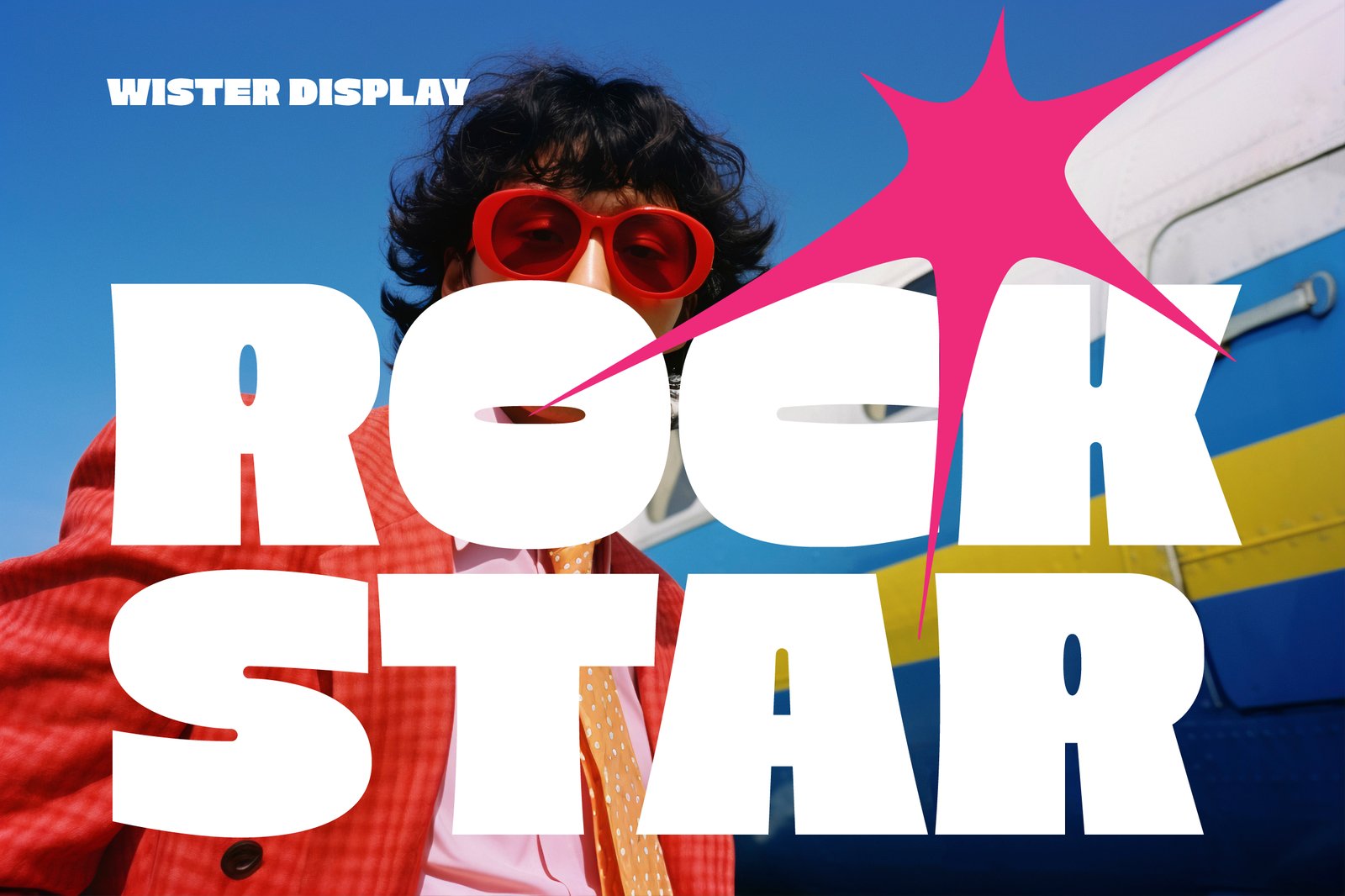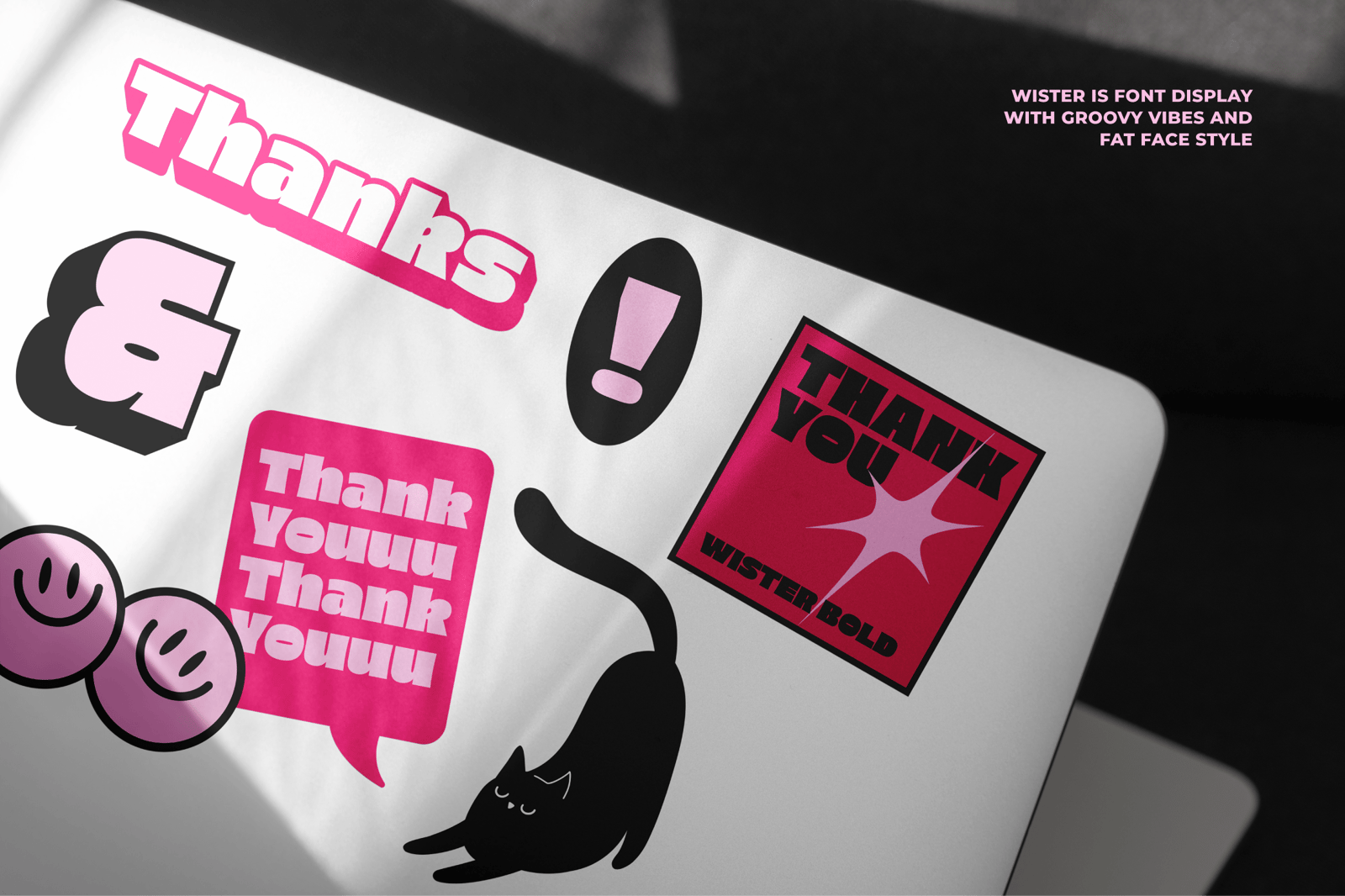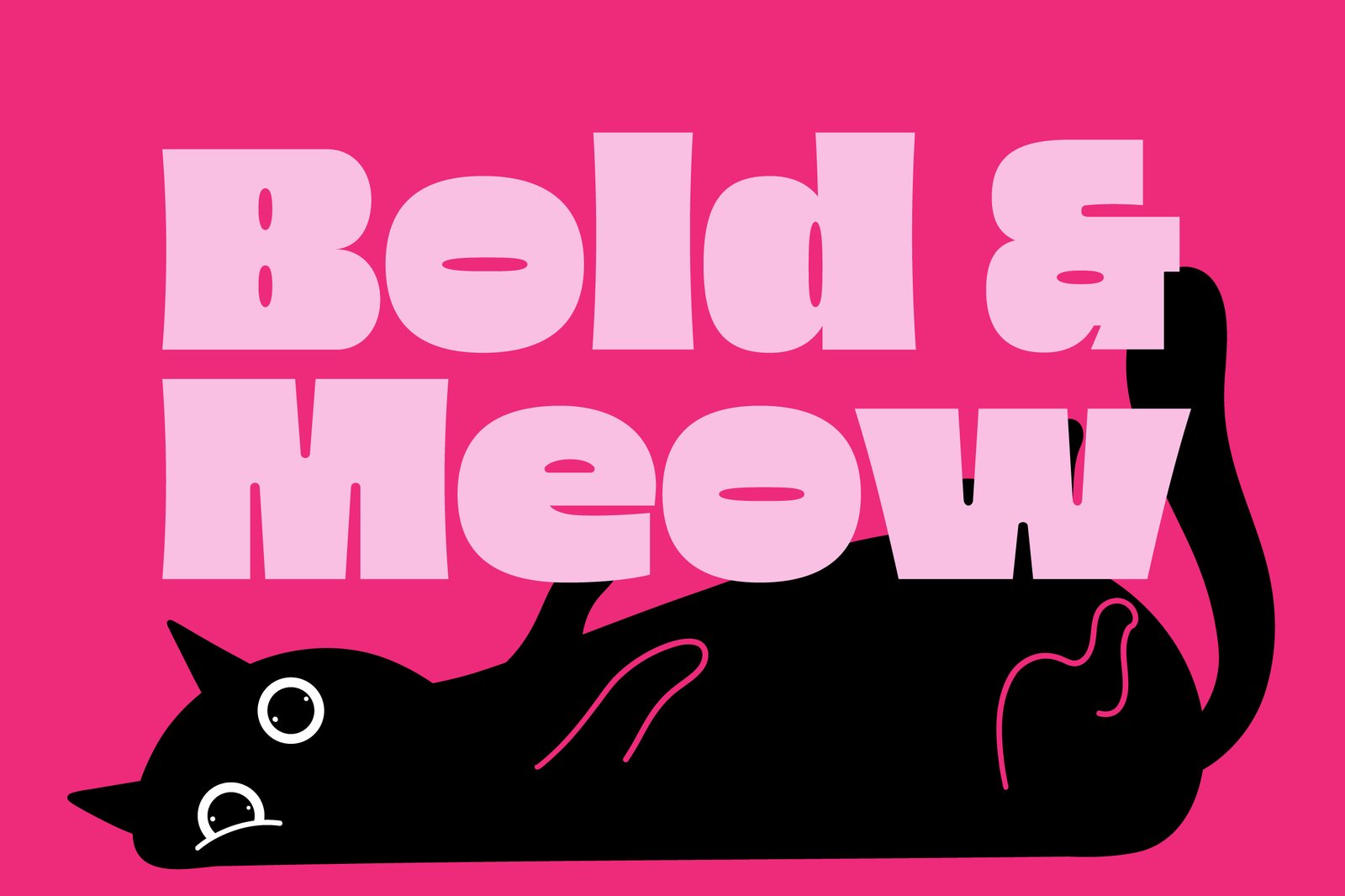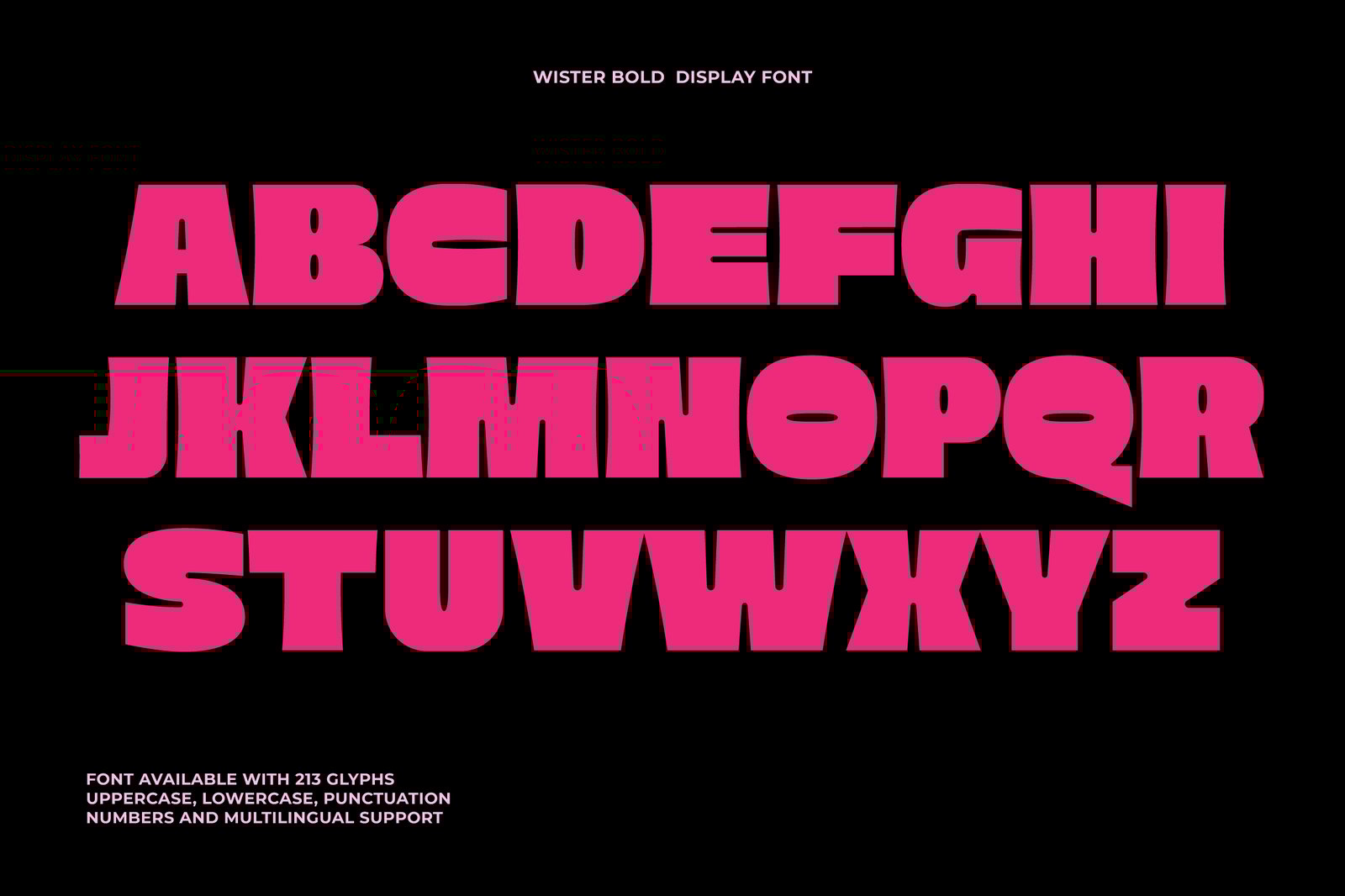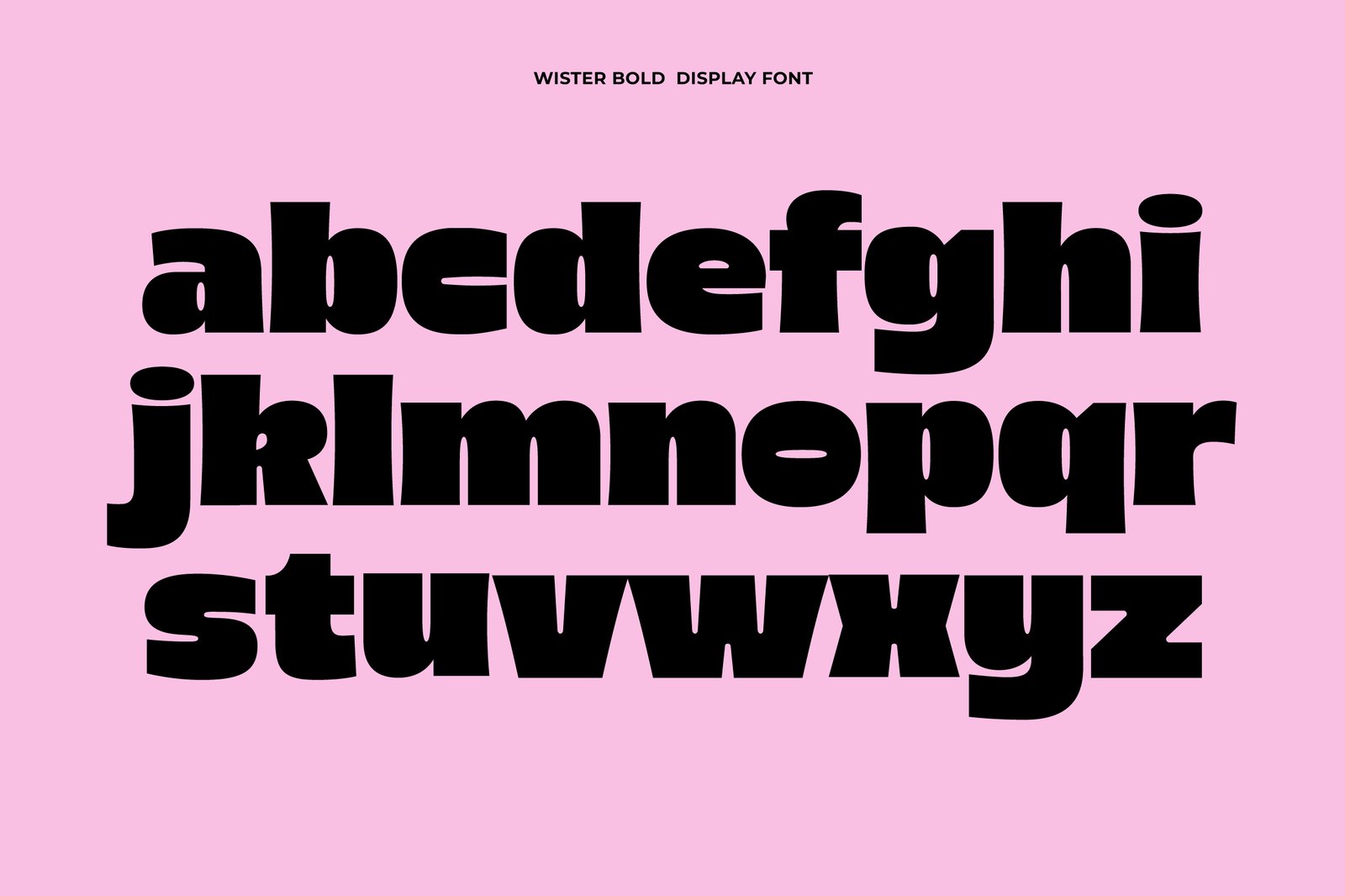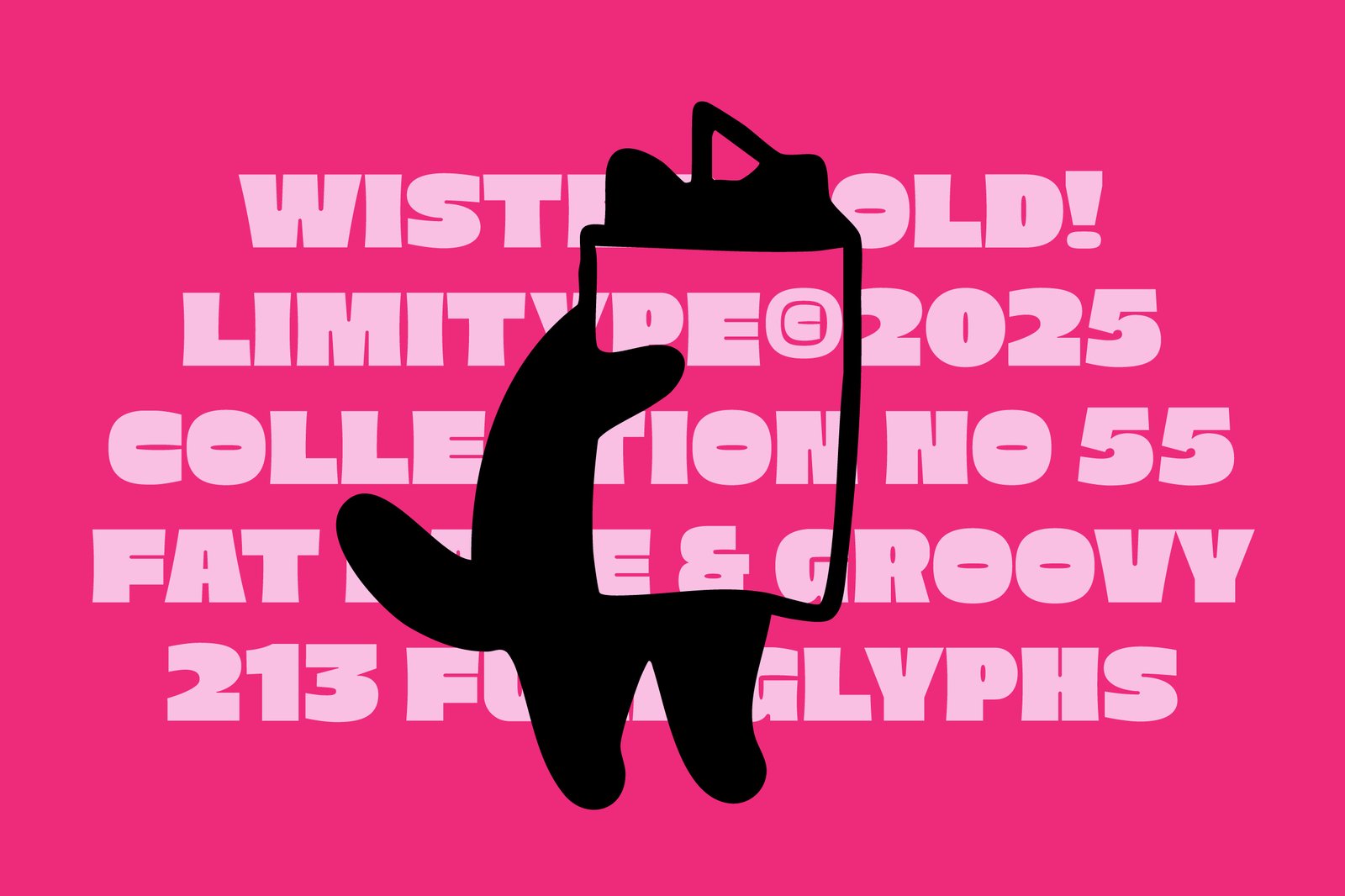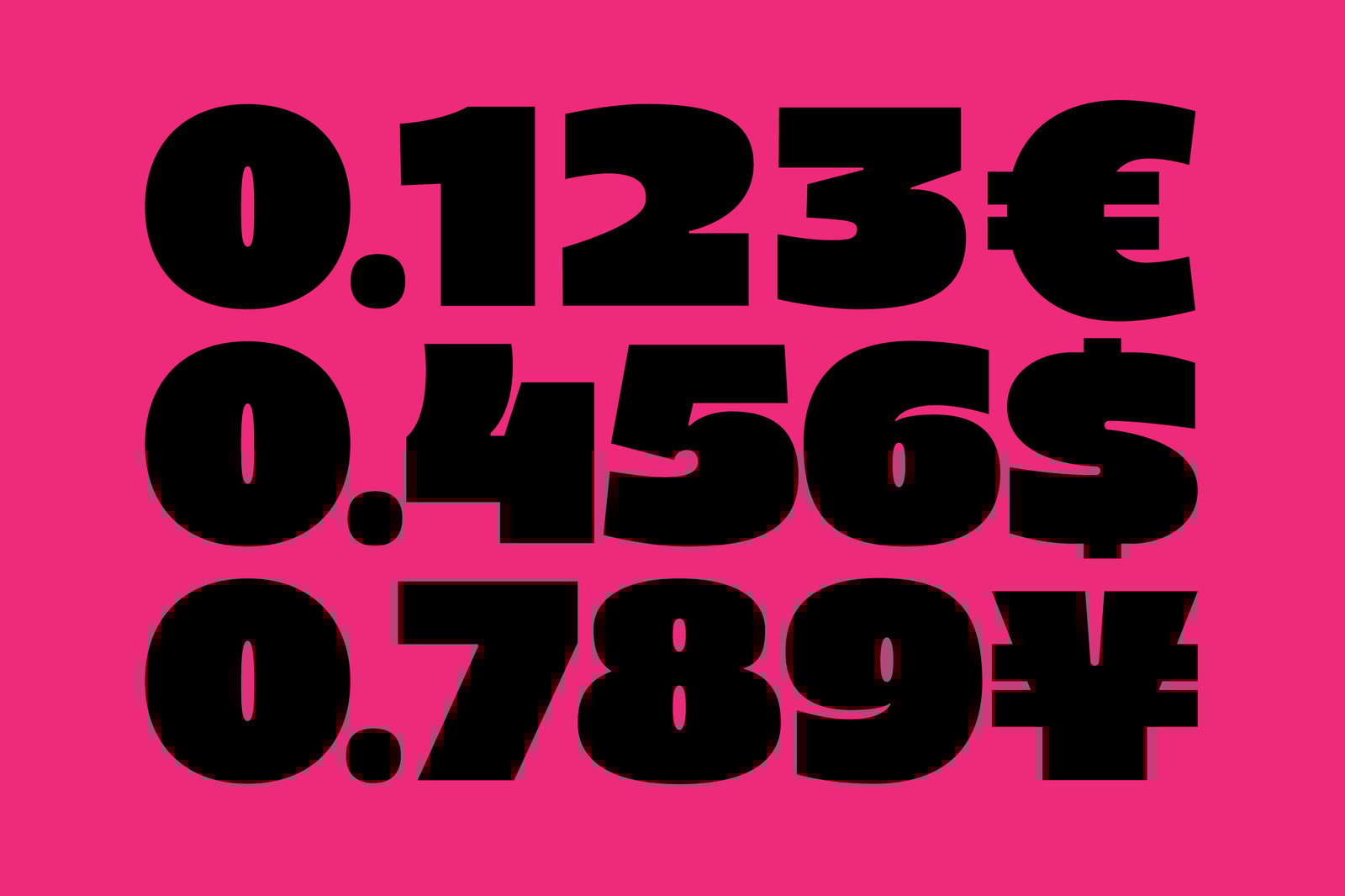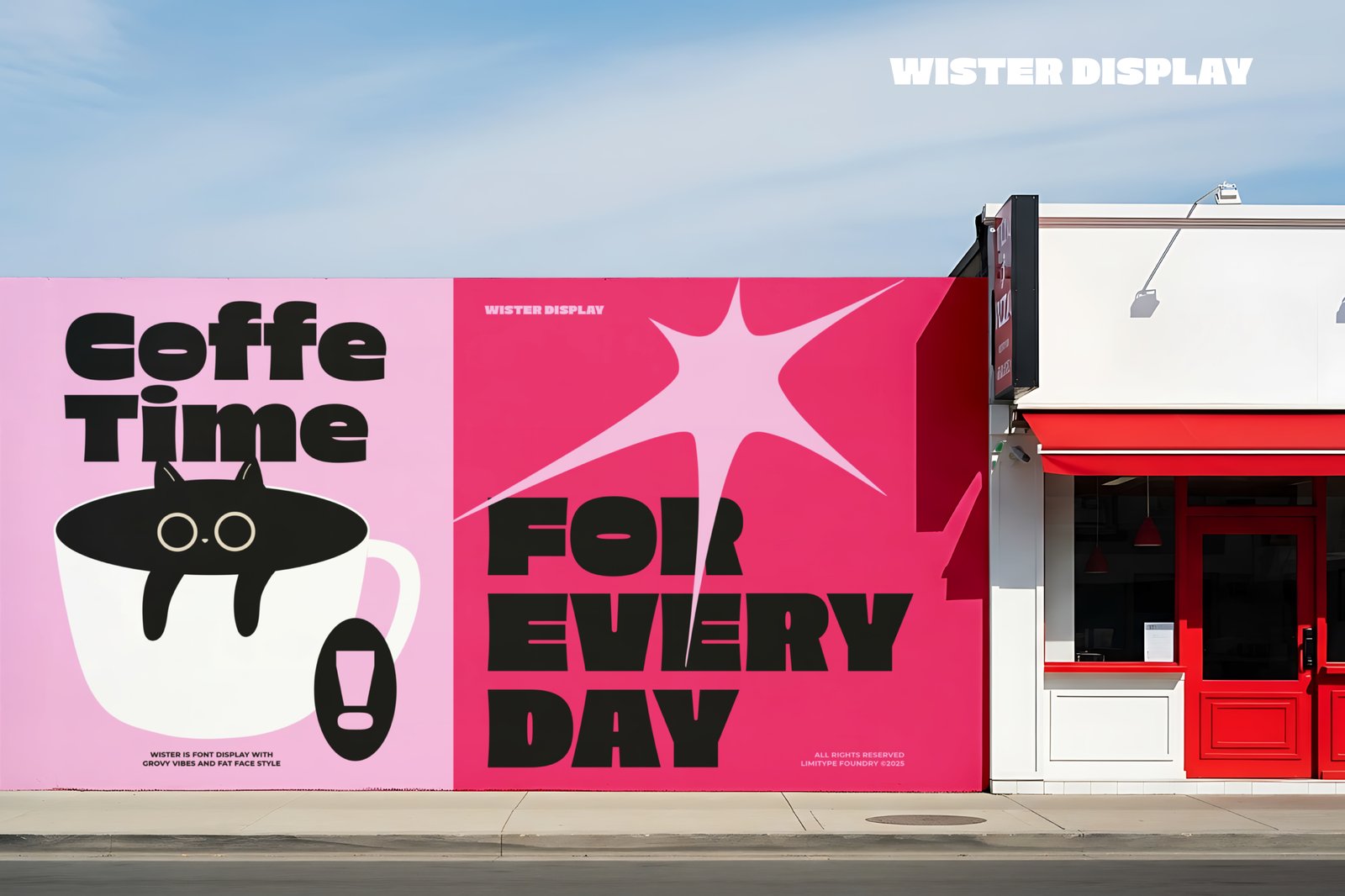
Wister - Bold Font
Wister is a groovy bold display font that bursts with energy and a unique retro flair. Its big, blocky shapes paired with smooth, dynamic curves give it a funky, playful, and expressive personality. With a mix of nostalgic charm and modern spirit, Wister is perfect for posters, titles, and any design that needs to stand out and grab attention.